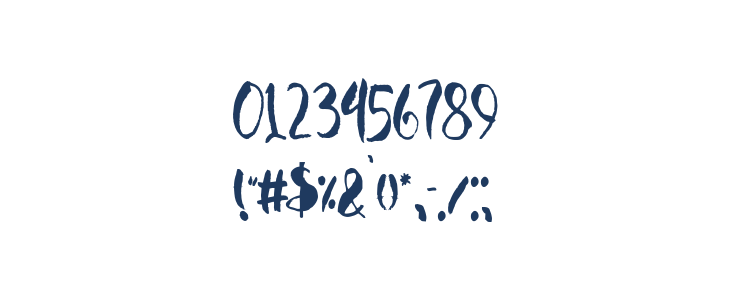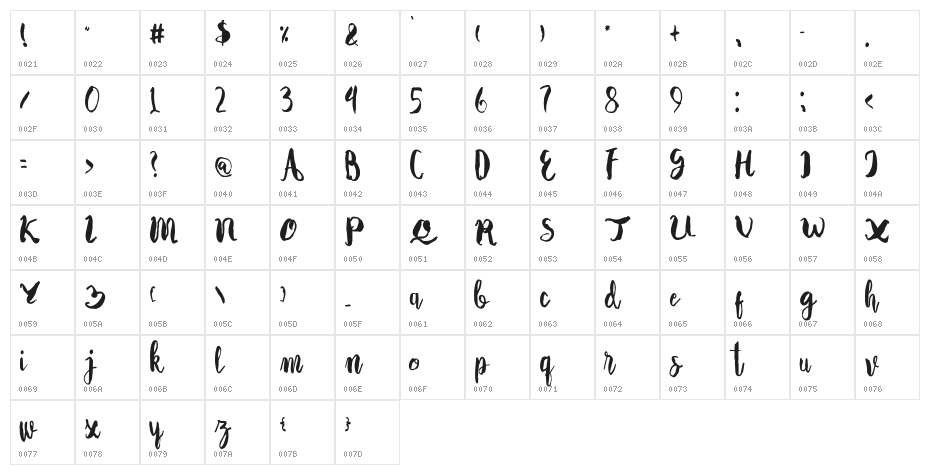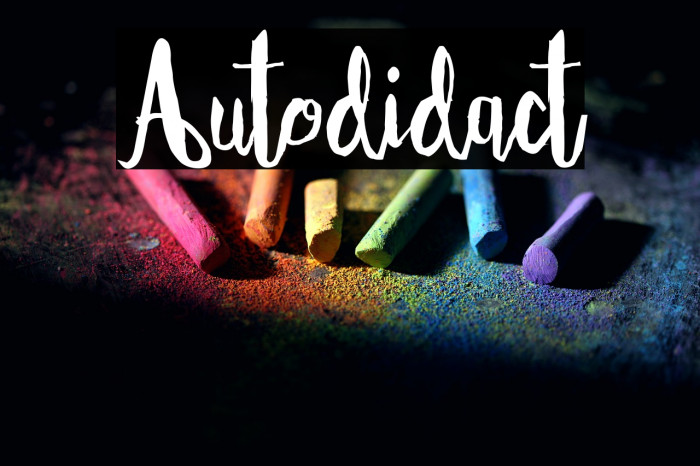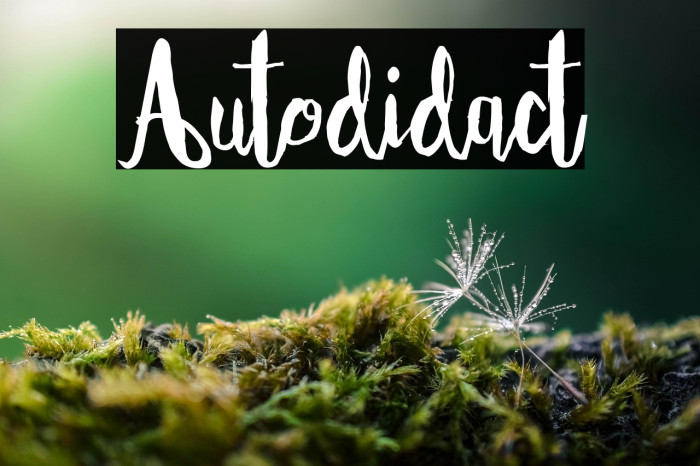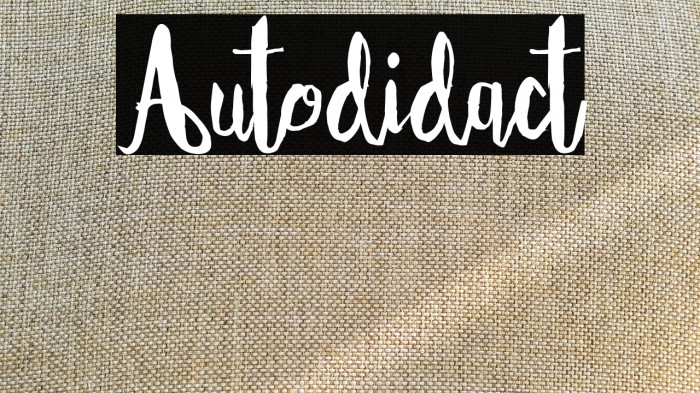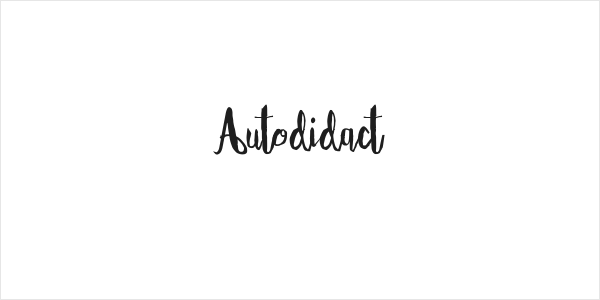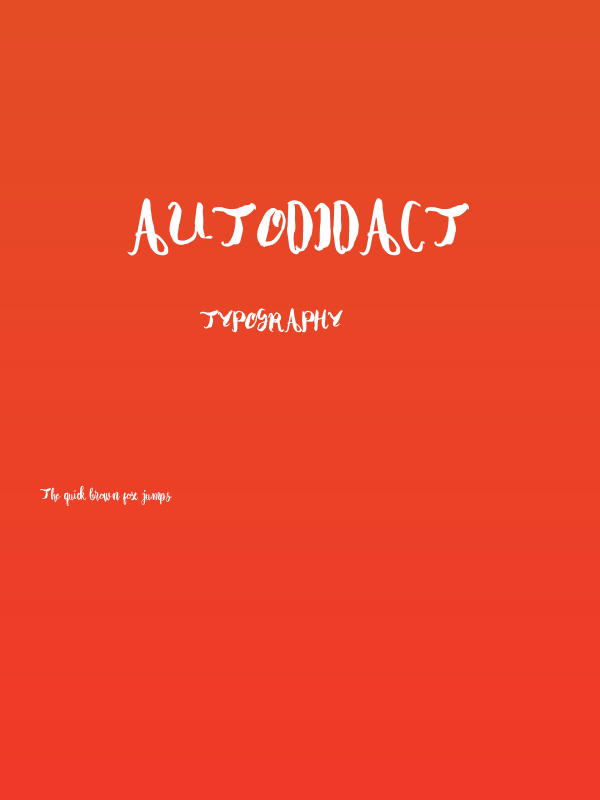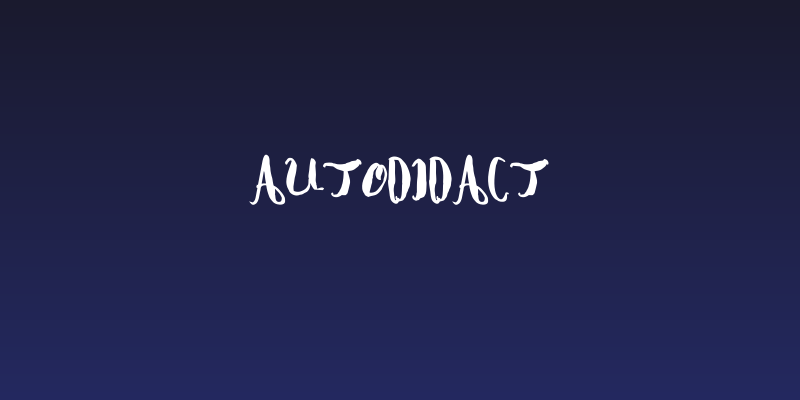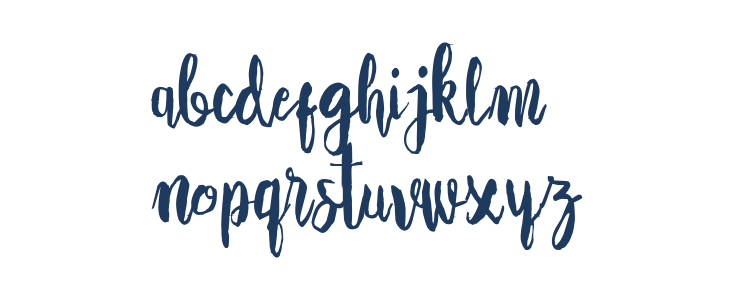
Autodidact Font
Autodidact Description
This font exhibits a bold and expressive handwritten style, characterized by its fluid and dynamic strokes. The letters have a brush-like appearance, with varying thickness that adds a sense of movement and energy. The uppercase letters are particularly striking, with a strong presence and artistic flair. The lowercase letters maintain a consistent style, complementing the uppercase with their own unique charm. Numbers and special characters follow the same aesthetic, ensuring a cohesive look across all text. The overall design is both modern and artistic, making it suitable for creative projects.
| Overall Style | Modern, Artistic |
| Proposed Projects | Ideal for artistic projects, branding, posters, and invitations where a creative and personal touch is desired. |